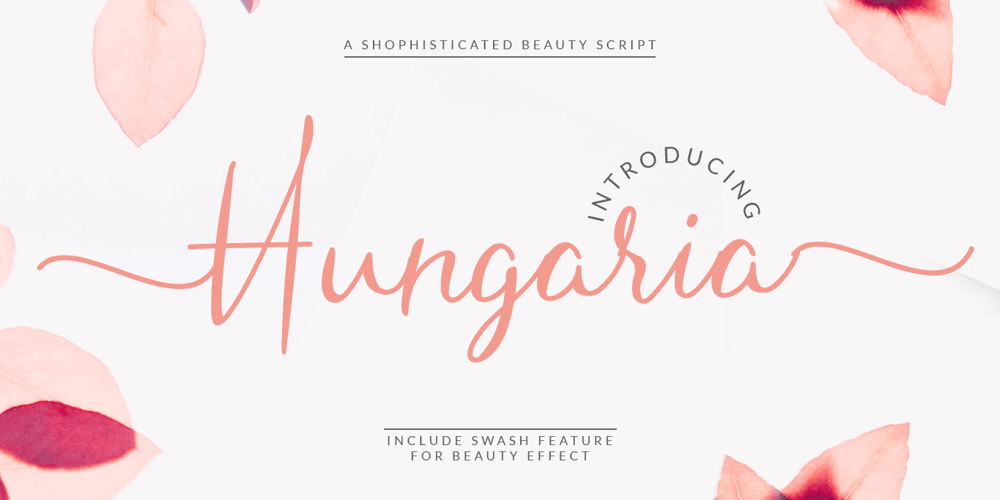
Hungaria
Hungaria font
Hungaria Font Family was designed by Deri Kurnia and published by Trim Studio. Hungaria contains 4 styles and family package options. Hungaria is a script with an elegant touch and feel, as well as additional swash weights. Hungaria can match nicely with your products, magazines and much more.